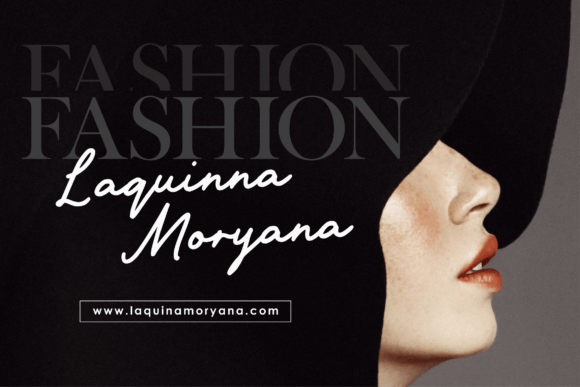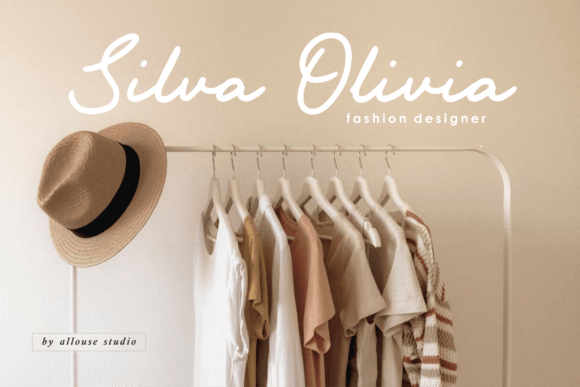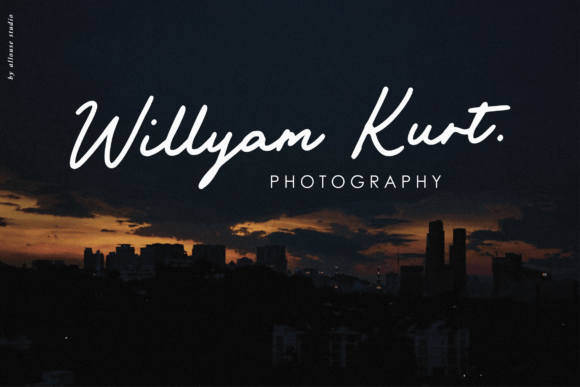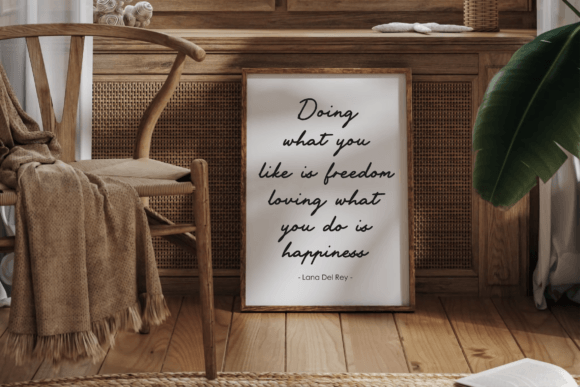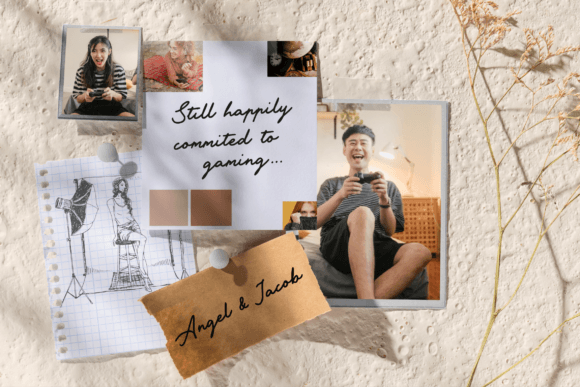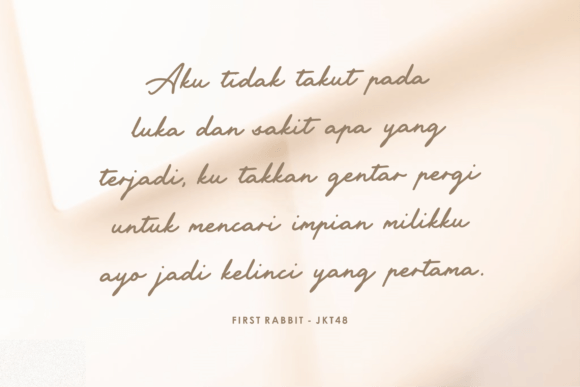
Introducing American Mountain: The Ultimate Casual Signature Font
Are you tired of using the same old fonts for your design projects? Look no further than American Mountain, a casual signature font that’s perfect for adding a touch of personality to your work. In this article, we’ll dive into the world of American Mountain and explore its features, uses, and benefits for designers and crafters.
What is American Mountain?
American Mountain is a unique and stylish font that’s designed to add a casual, laid-back vibe to your designs. With its signature style and mountain-inspired theme, this font is perfect for creating eye-catching headlines, titles, and text that stands out from the crowd.
Key Features of American Mountain
- Unique and Stylish Design: American Mountain boasts a distinctive design that’s both modern and rustic, making it perfect for a wide range of design projects.
- Casual and Laid-Back Vibe: This font is designed to add a relaxed, casual feel to your designs, making it ideal for projects that require a friendly and approachable tone.
- Signature Style: American Mountain has a signature style that’s perfect for creating eye-catching headlines and titles that make a lasting impression.
- Highly Versatile: This font can be used for a wide range of design projects, from product packaging and branding to magazine articles and social media posts.
Uses of American Mountain
American Mountain is a highly versatile font that can be used for a variety of design projects, including:
- Product Packaging: Add a touch of personality to your product packaging with American Mountain’s unique and stylish design.
- Branding Projects: Use American Mountain to create eye-catching logos, business cards, and other branding materials that make a lasting impression.
- Magazine Articles: Add a casual, laid-back vibe to your magazine articles with American Mountain’s signature style.
- Social Media Posts: Use American Mountain to create eye-catching social media posts that stand out from the crowd.
- Weddings and Events: American Mountain is perfect for creating beautiful wedding invitations, programs, and other event materials.
Benefits of Using American Mountain
So why choose American Mountain for your design projects? Here are just a few benefits of using this amazing font:
- Adds Personality to Your Designs: American Mountain’s unique and stylish design adds a touch of personality to your designs, making them stand out from the crowd.
- Highly Versatile: This font can be used for a wide range of design projects, making it a great addition to any designer’s toolkit.
- Easy to Read: American Mountain is highly legible, making it perfect for use in body text, headlines, and titles.
- Unique and Memorable: American Mountain’s signature style makes it a great choice for creating memorable and eye-catching designs.
Tips for Using American Mountain
Here are a few tips for getting the most out of American Mountain:
- Use it as a Headline Font: American Mountain is perfect for use as a headline font, adding a touch of personality and style to your titles and headings.
- Pair it with Other Fonts: Experiment with pairing American Mountain with other fonts to create a unique and stylish look.
- Use it for Body Text: American Mountain is highly legible, making it suitable for use in body text as well as headlines and titles.
American Mountain is a unique and stylish font that’s perfect for designers and crafters looking to add a touch of personality to their work. With its casual, laid-back vibe and signature style, this font is highly versatile and can be used for a wide range of design projects. Whether you’re working on product packaging, branding projects, magazine articles, or social media posts, American Mountain is a great choice. So why not give it a try and see the difference it can make in your designs?